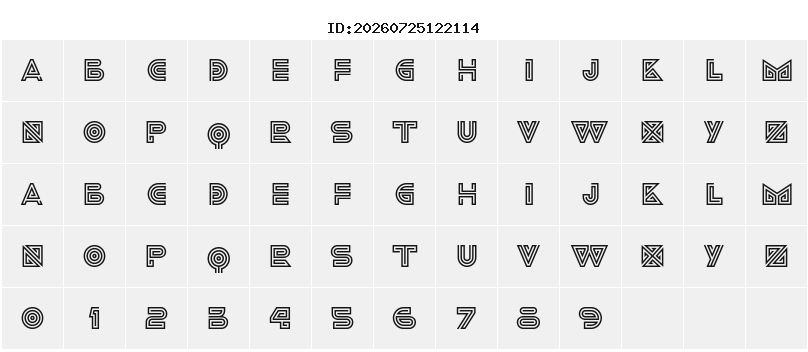
ideoma LINER Preview
• Font Name: ideoma LINER
• Full Font Name: ideomaLINER
• PostScript Name: ideomaLINER
About ideoma LINER.otf
ideoma LINER.otf is a modern, elegant sans-serif font designed for ultimate readability and visual harmony. Perfect for branding, headlines, web design, and print materials.